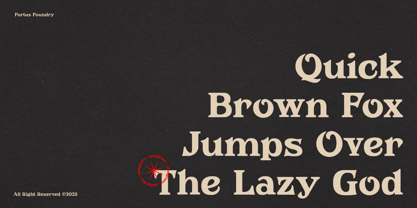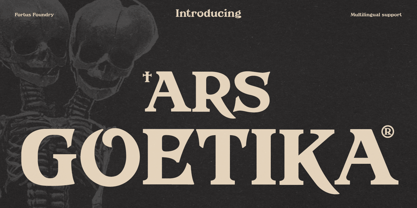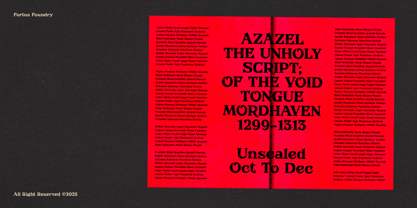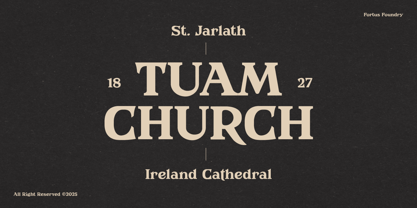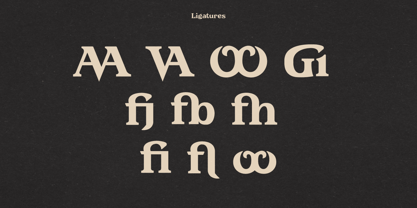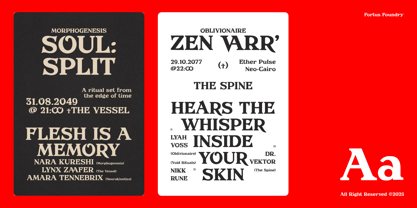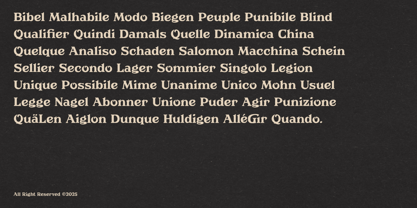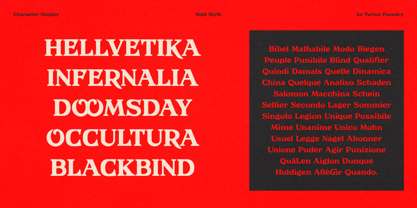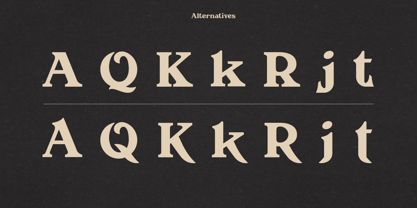
Ars Goetika
por Fortus Foundry
La familia tipográfica Ars Goetika fue diseñada por Zulhilmi Hanip y publicada por Fortus Foundry. Ars Goetika contiene 1 estilos. Más información sobre esta familia
Ars Goetika is a dramatic serif typeface inspired by the forbidden grimoires of the old world. With bold strokes, exaggerated curves, and theatrical flair, this typeface channels the mysticism and menace of occult manuscripts, vintage horror, and dark ceremonial art.
Designed for designers who dare, Ars Goetika stands tall in posters, album covers, ritual zines, and anything that calls for a touch of elegant darkness. From ancient glyphs to gothic rebellion, it carries the weight of a hundred whispered incantations.
Diseñadores: Zulhilmi Hanip
Fundición: Fortus Foundry